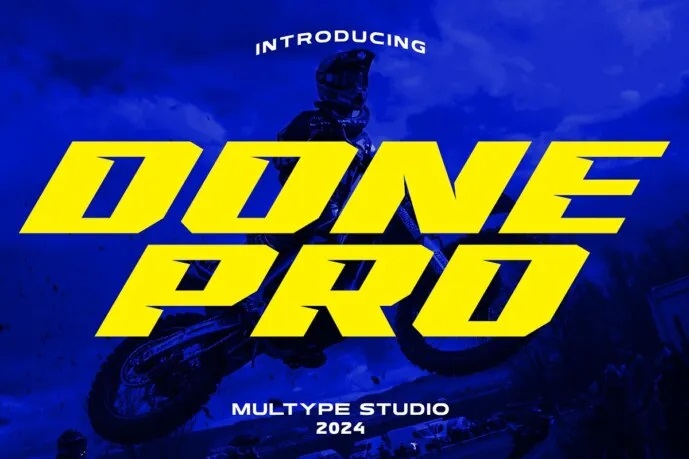
Racing Done Pro Font
Racing Done Pro Font Bold with constant cuts, this font is strong, consistent and… fast! Racing Done Pro it’s Perfect for Logotype, Racing Product, Racing Game cover, sports events, automotive posters, automotive magazine covers, Racing event Promotion, Badge, Flyers & other related projects.
Racing Done Pro Display Font